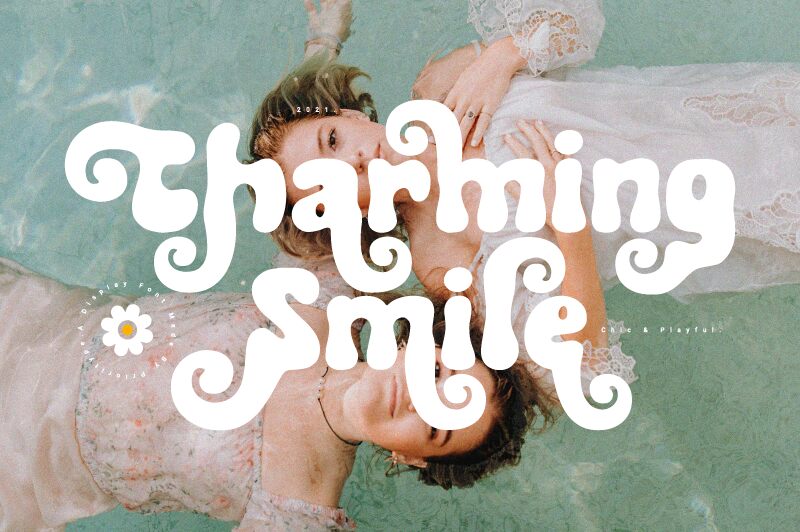
Charming Smile font is a bold groovy typeface designed by Prio Nurokhim Aji of Prioritype.
Präsentation und Schriftprobe von Charming Smile DEMO Regular